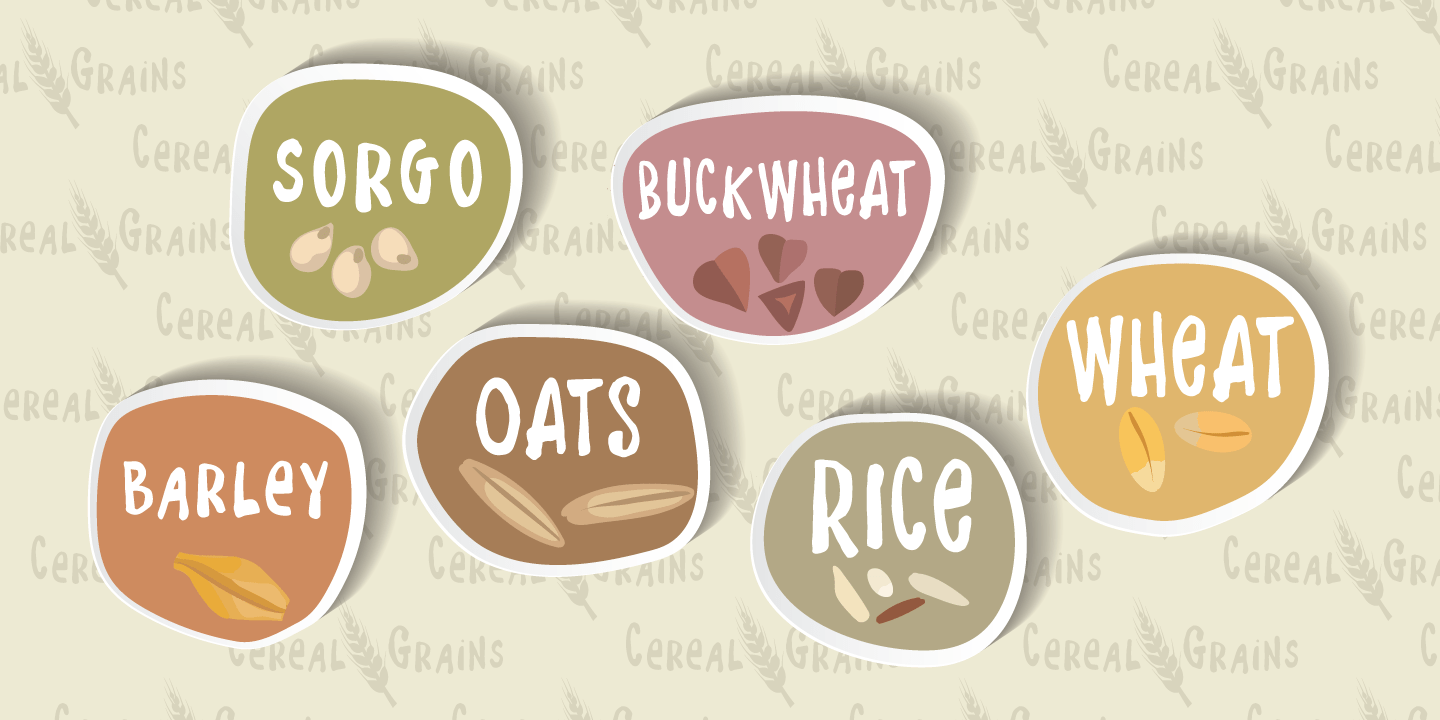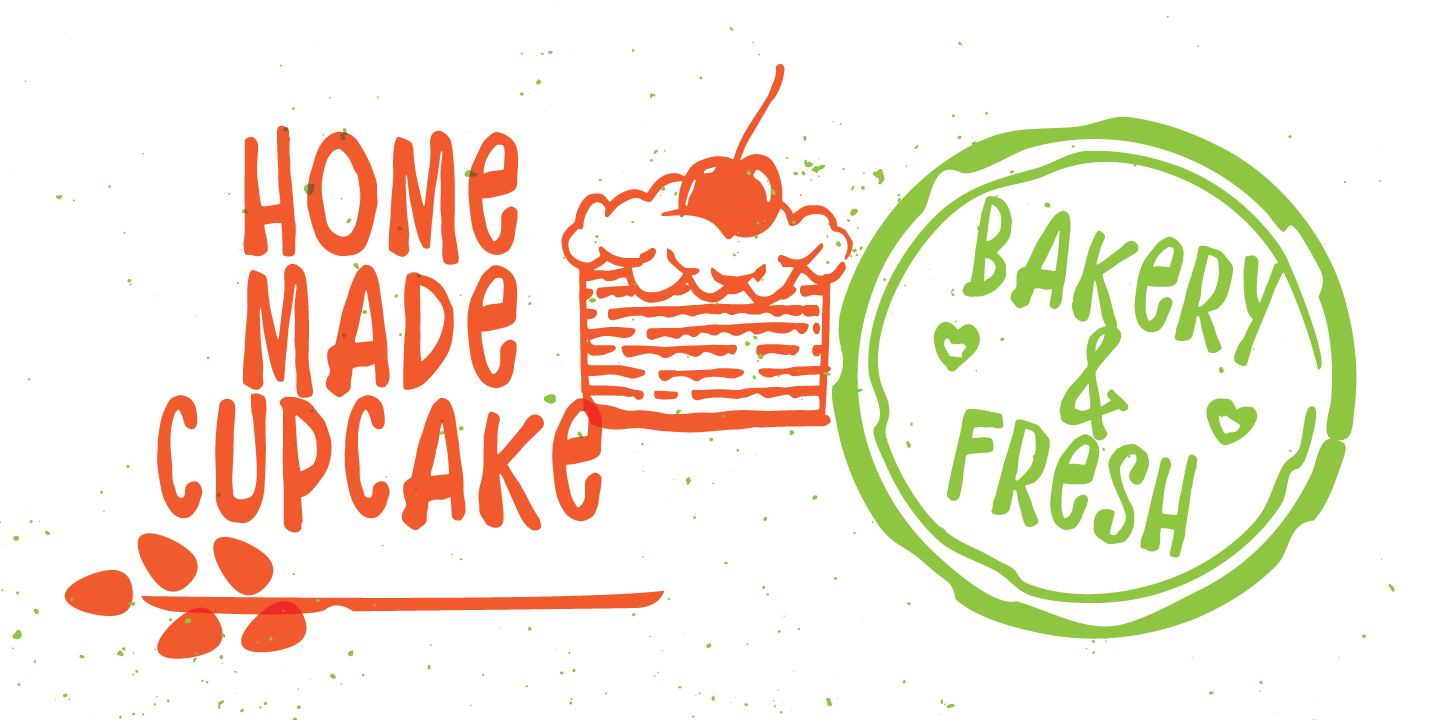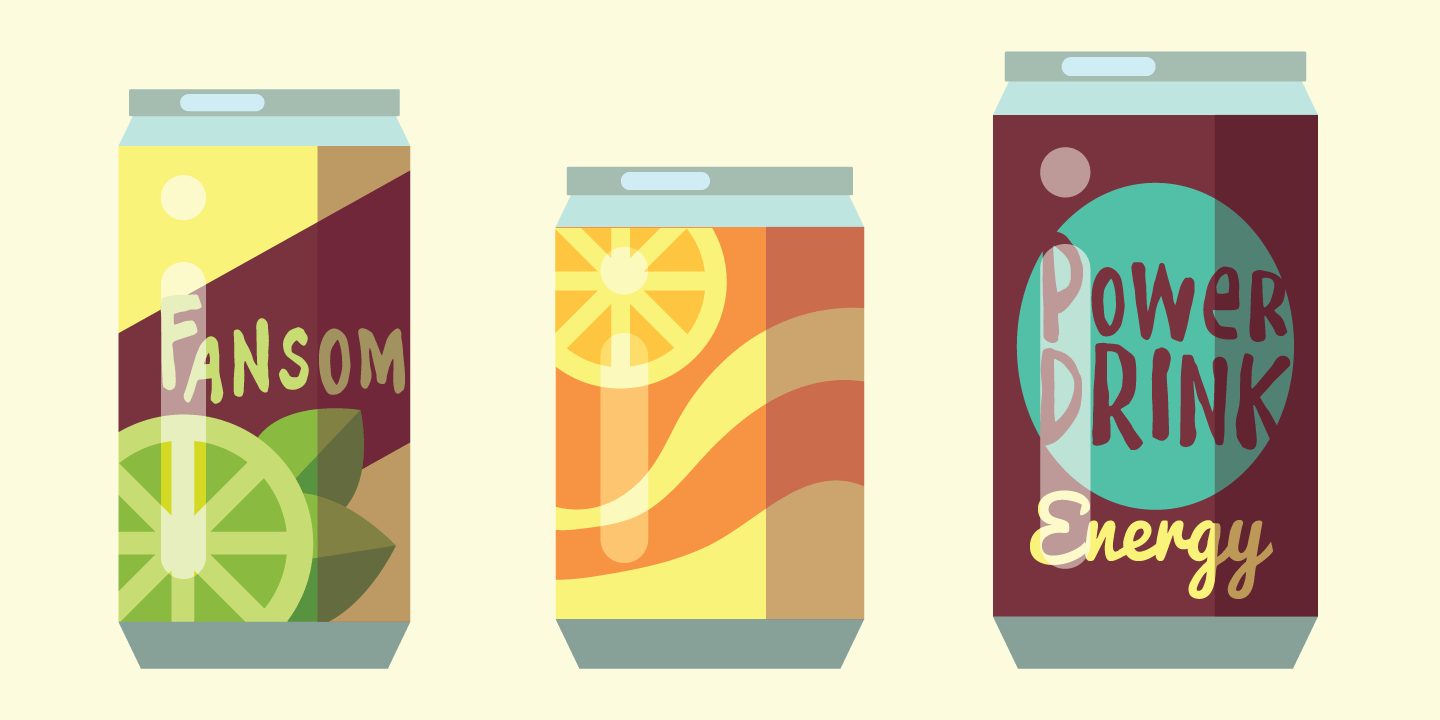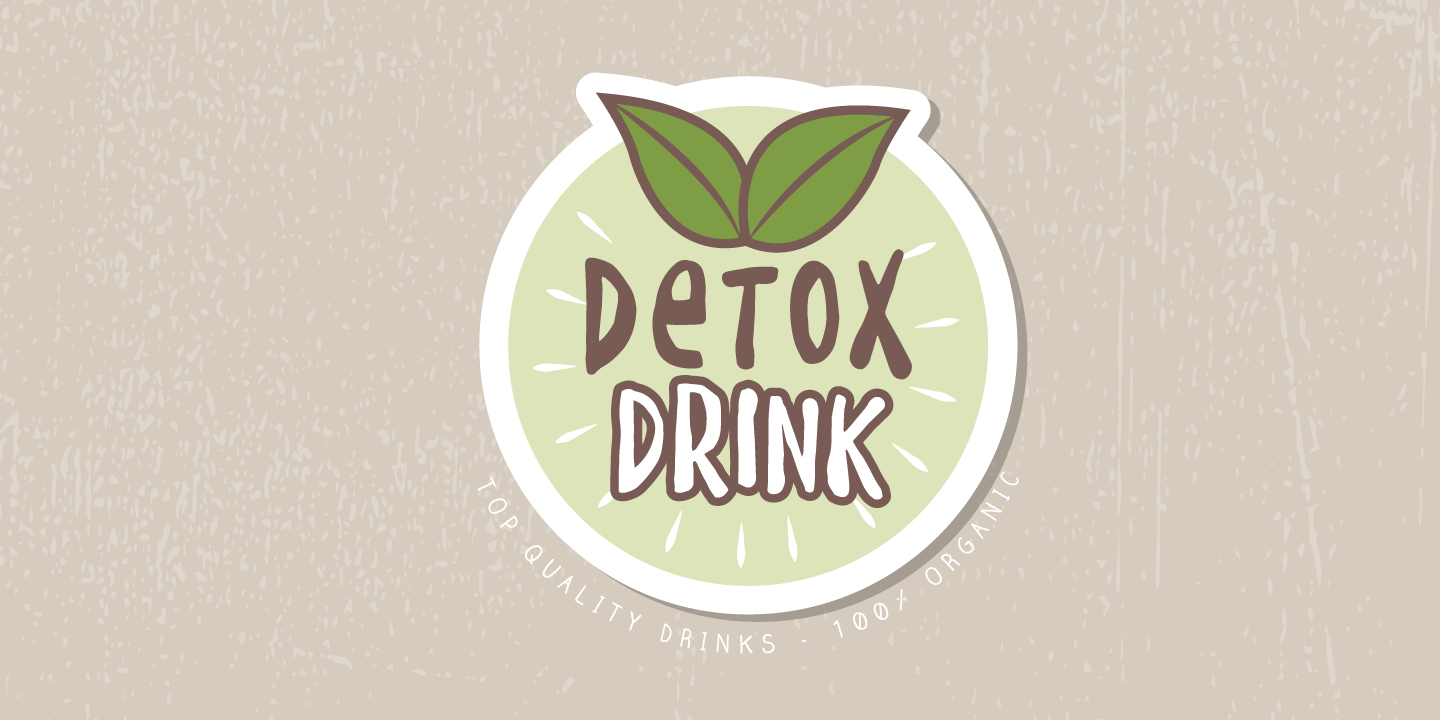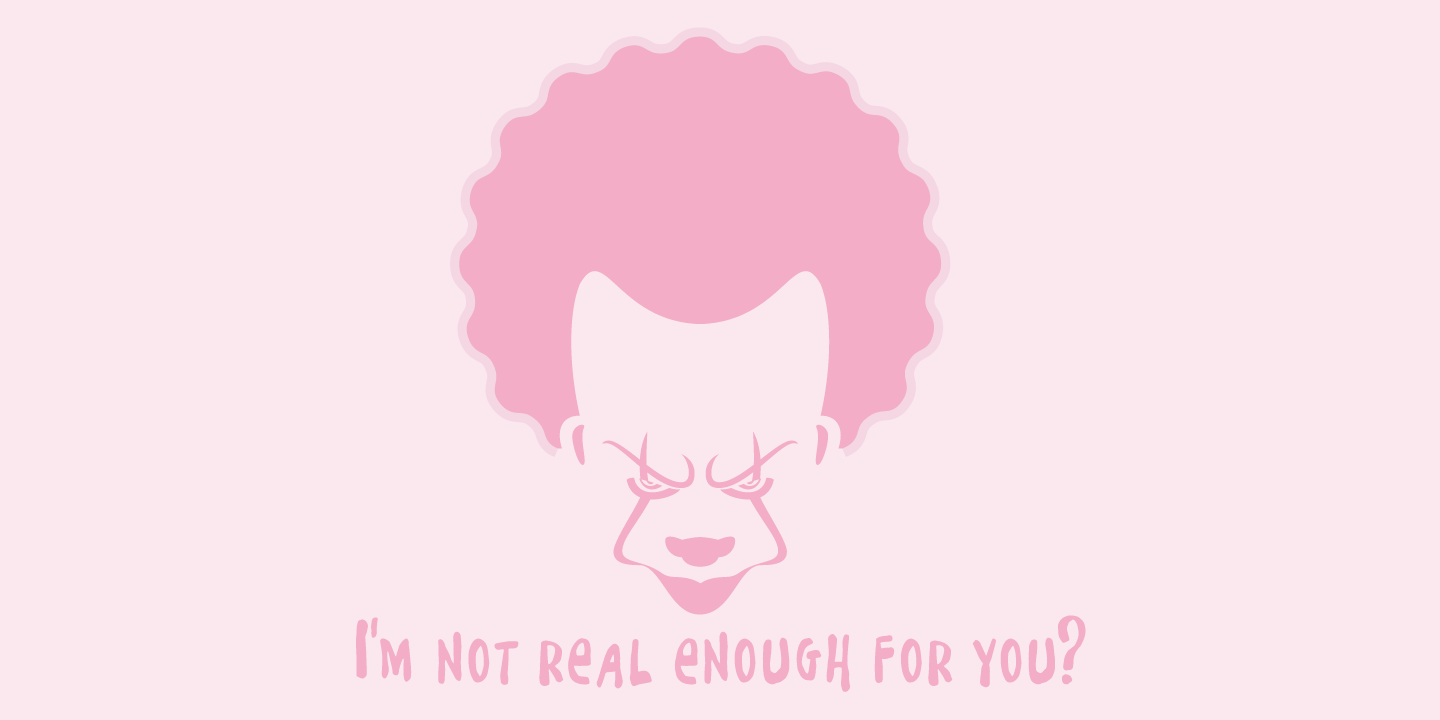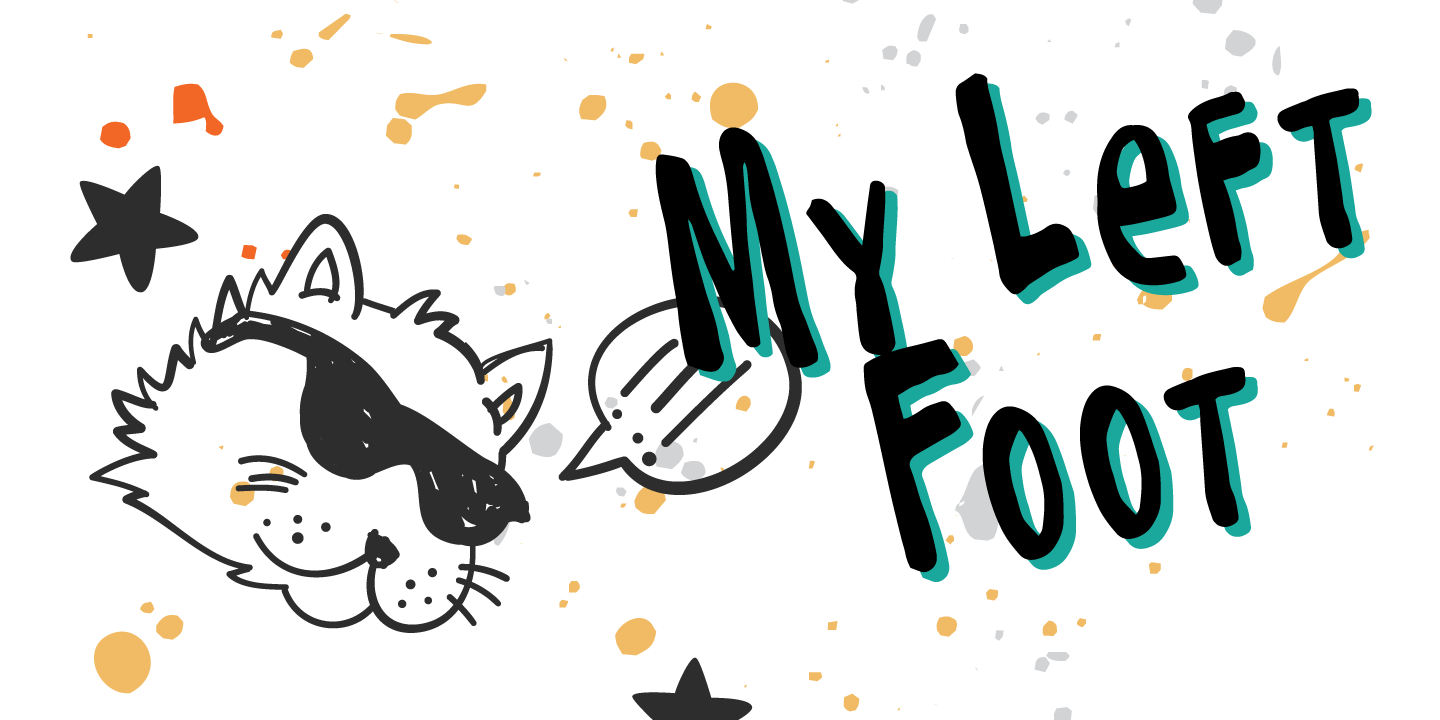
Don\’t let the name fool you! My Left Foot was made by hand. Alts, ligatures and Vietnamese all included in this whimsical typeface. Go ahead and dip your toes in!